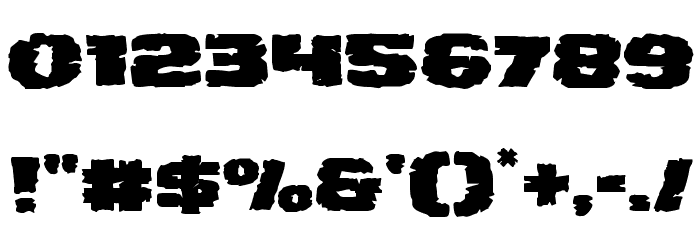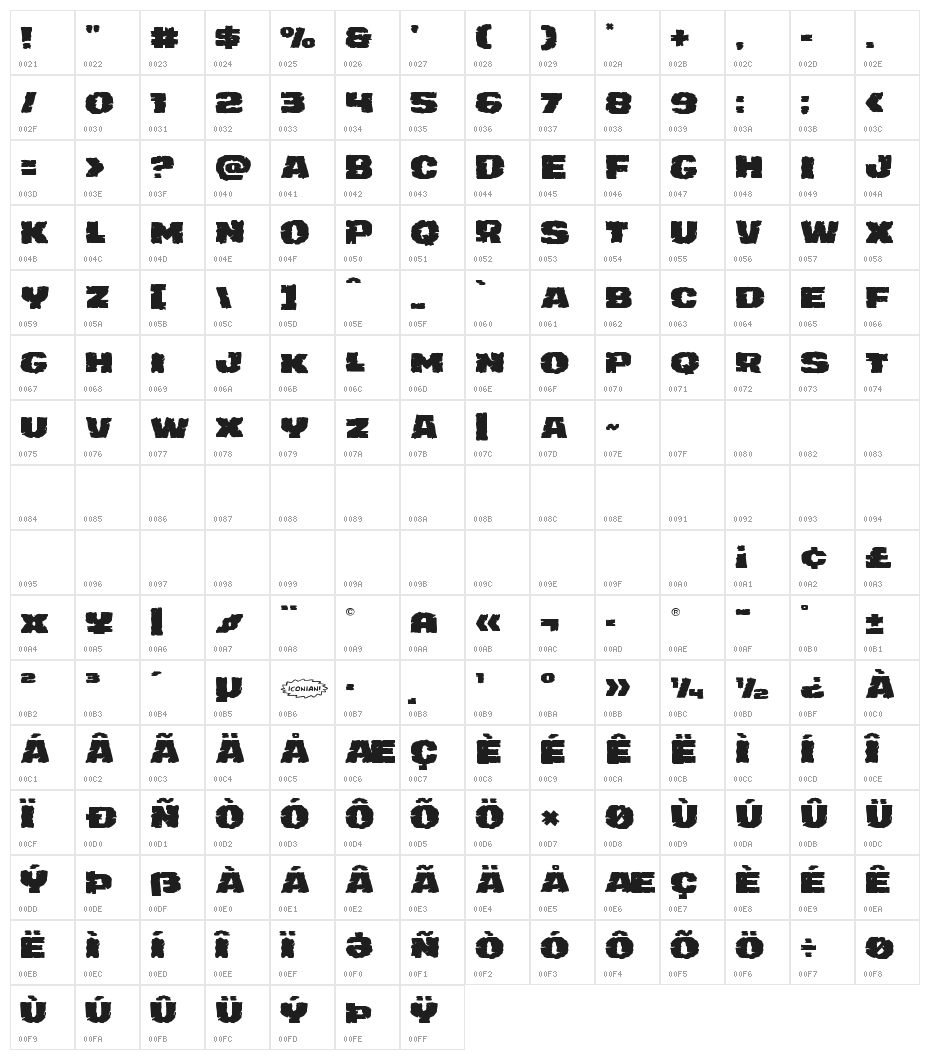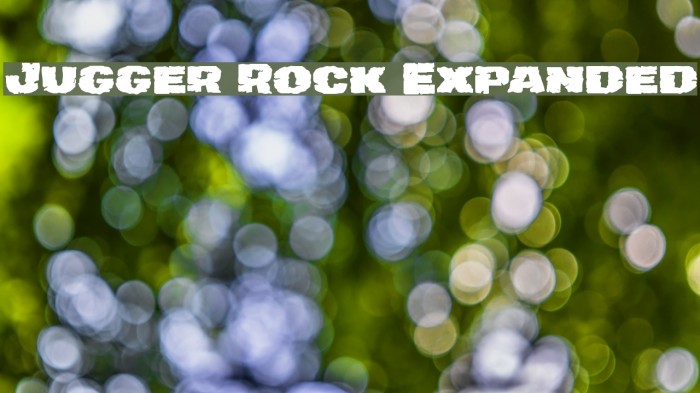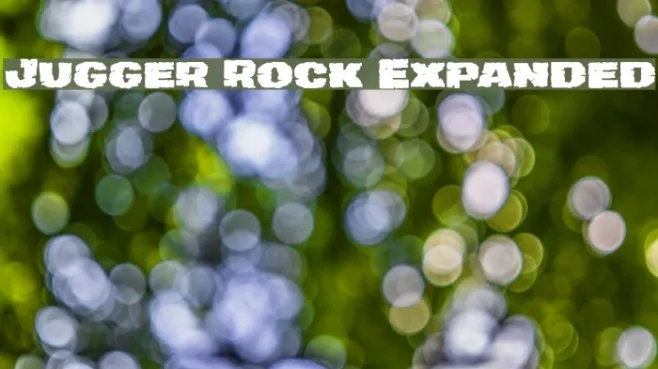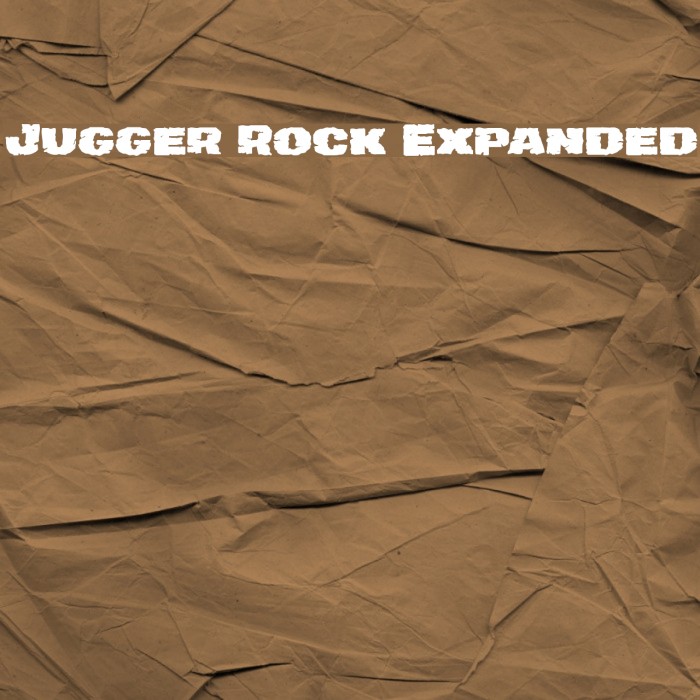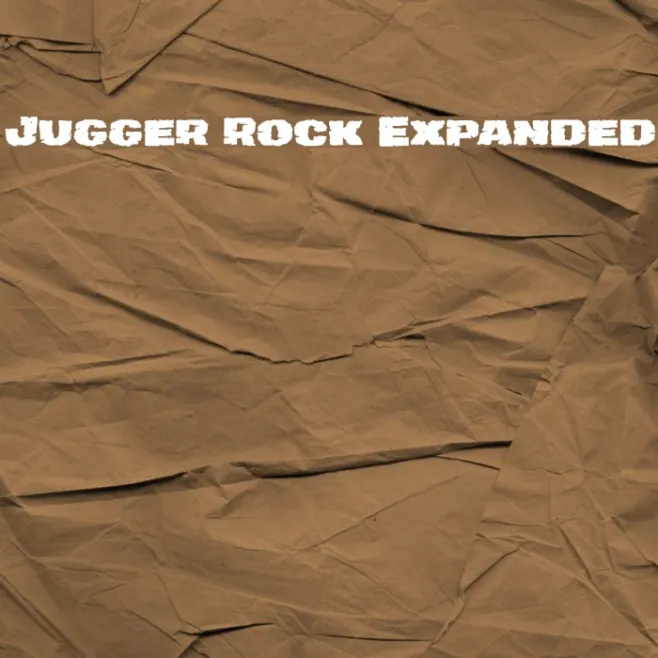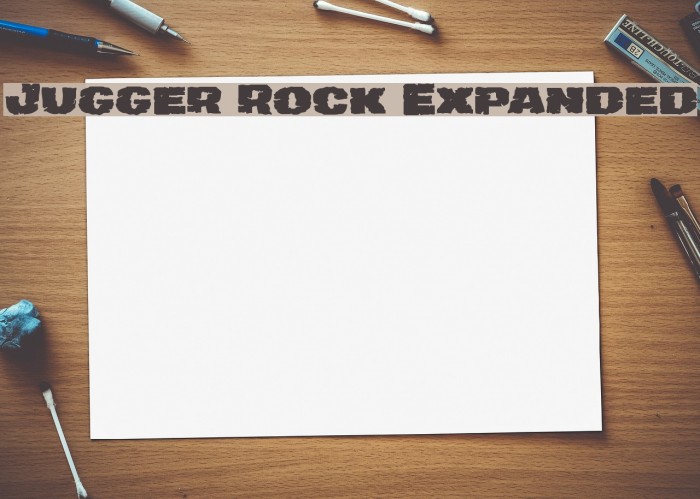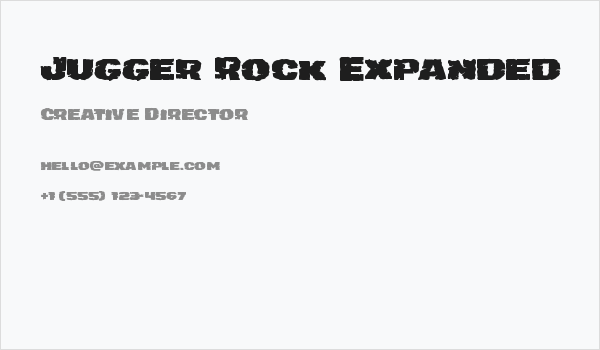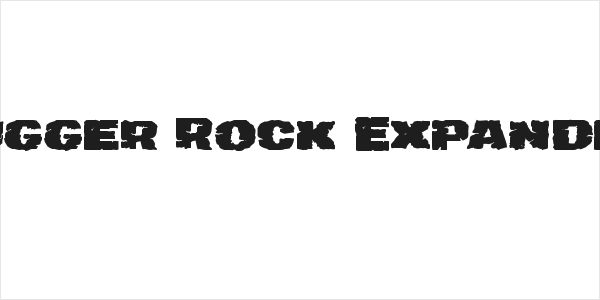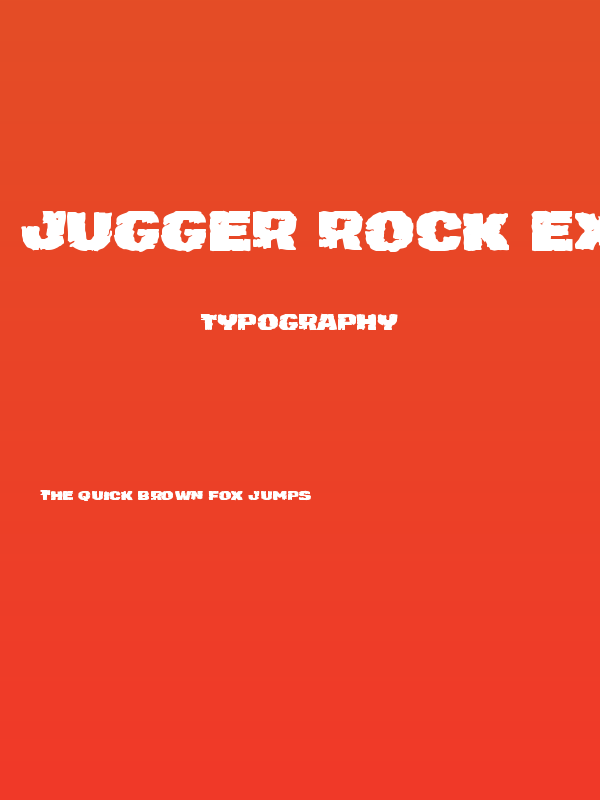
Jugger Rock Expanded Font
Jugger Rock Expanded Description
This font features a bold and rugged design, characterized by its distressed and textured appearance. The letters are heavily stylized, with rough edges and a blocky structure that gives it a strong, impactful presence. The uppercase and lowercase letters maintain a consistent style, with a uniform width that enhances its boldness. Numbers and special characters follow the same design ethos, ensuring a cohesive look across all glyphs. The font's expanded width and heavy weight make it ideal for attention-grabbing headlines or titles.
Proposed ProjectsIdeal for music album covers, event posters, or branding for extreme sports and adventure-themed projects.